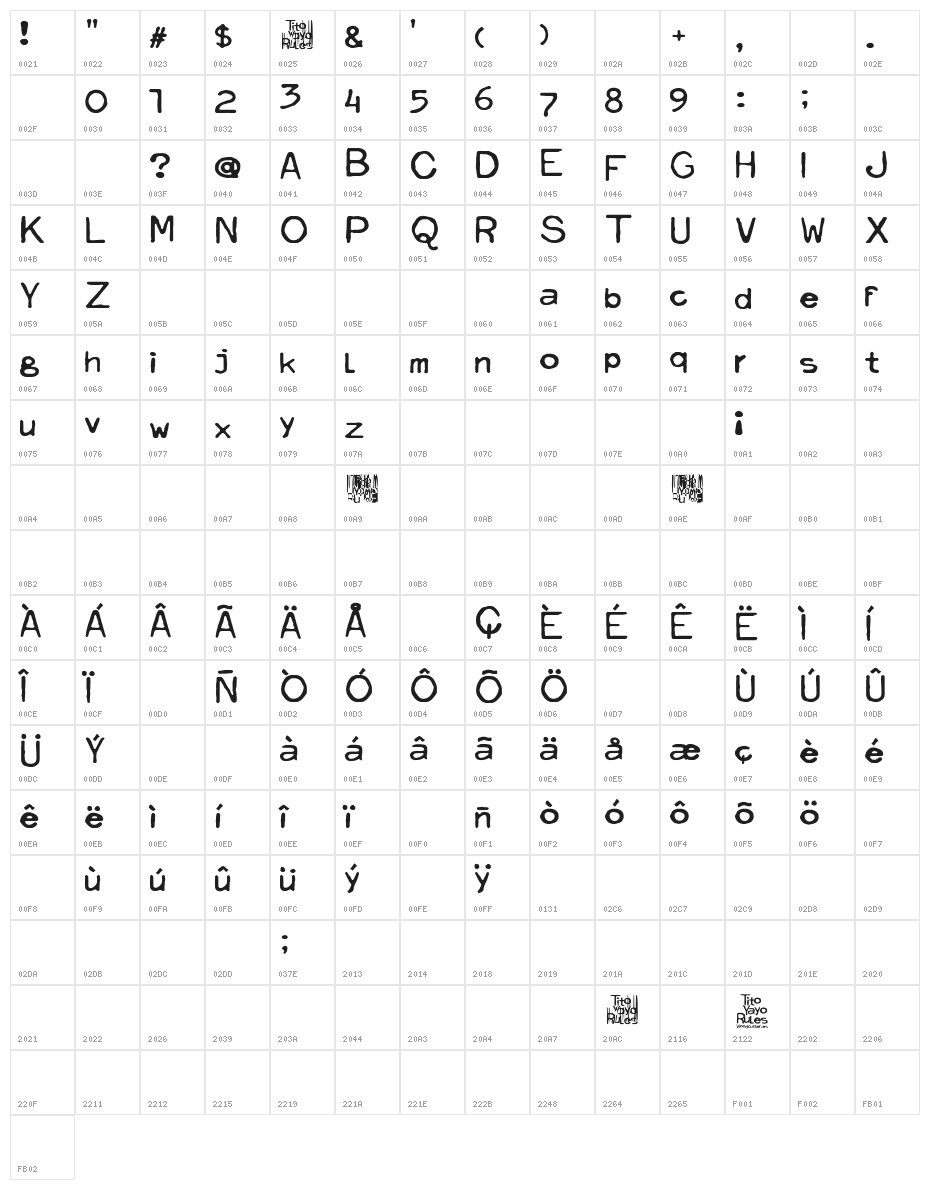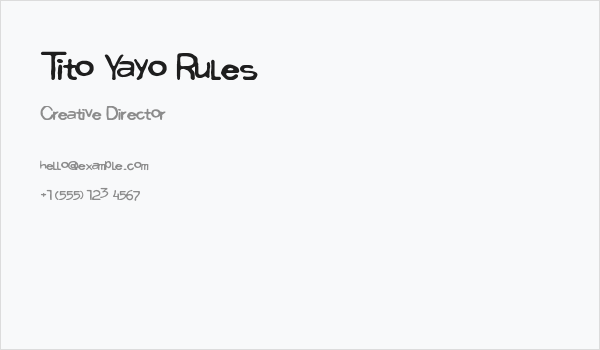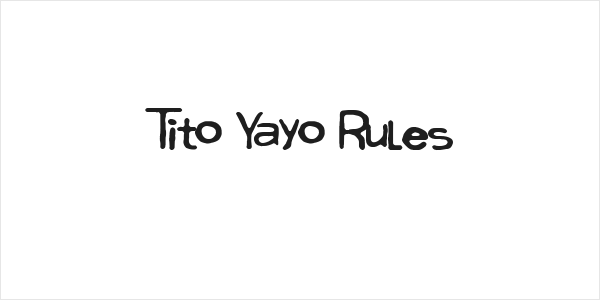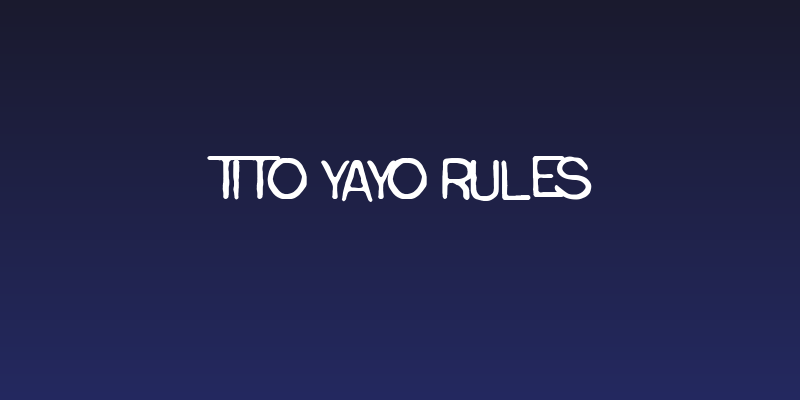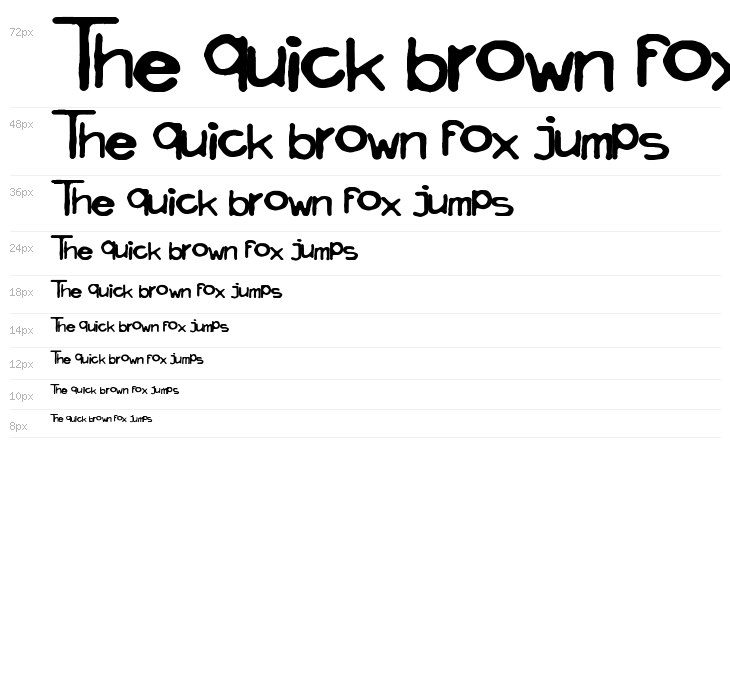
Tito Yayo Rules Font
Tito Yayo Rules Description
This font exhibits a playful and artistic style, characterized by its irregular, hand-drawn appearance. The letters are bold and slightly uneven, giving a whimsical and casual feel. The strokes are thick, with varying widths that add to the font's dynamic and lively nature. The uppercase and lowercase letters maintain a consistent style, with rounded edges and a slightly distorted form that enhances its informal look. The numerals and special characters follow the same playful theme, making the font suitable for creative and fun projects. Its unique style makes it stand out, perfect for designs that require a touch of personality and flair.
| Proposed Projects | Ideal for children's books, creative posters, playful branding, and artistic invitations. |